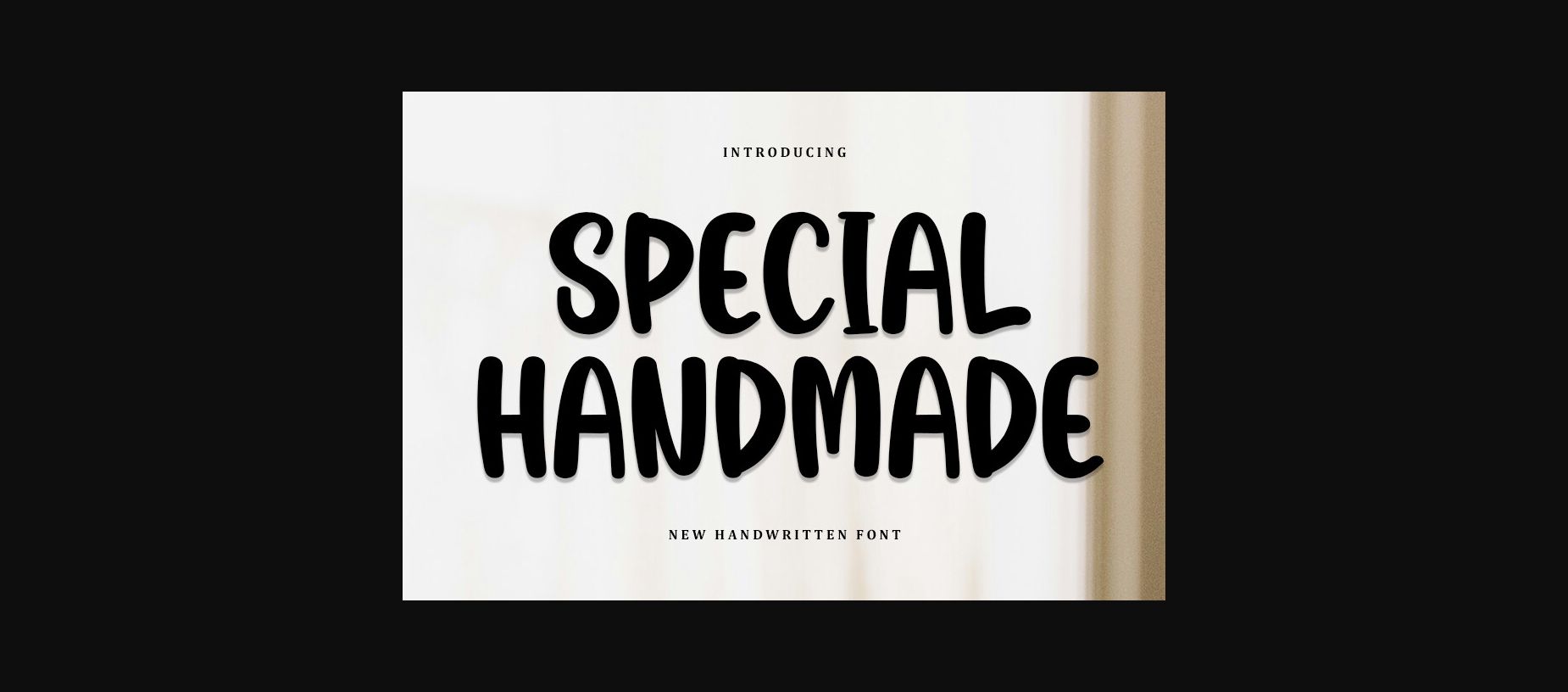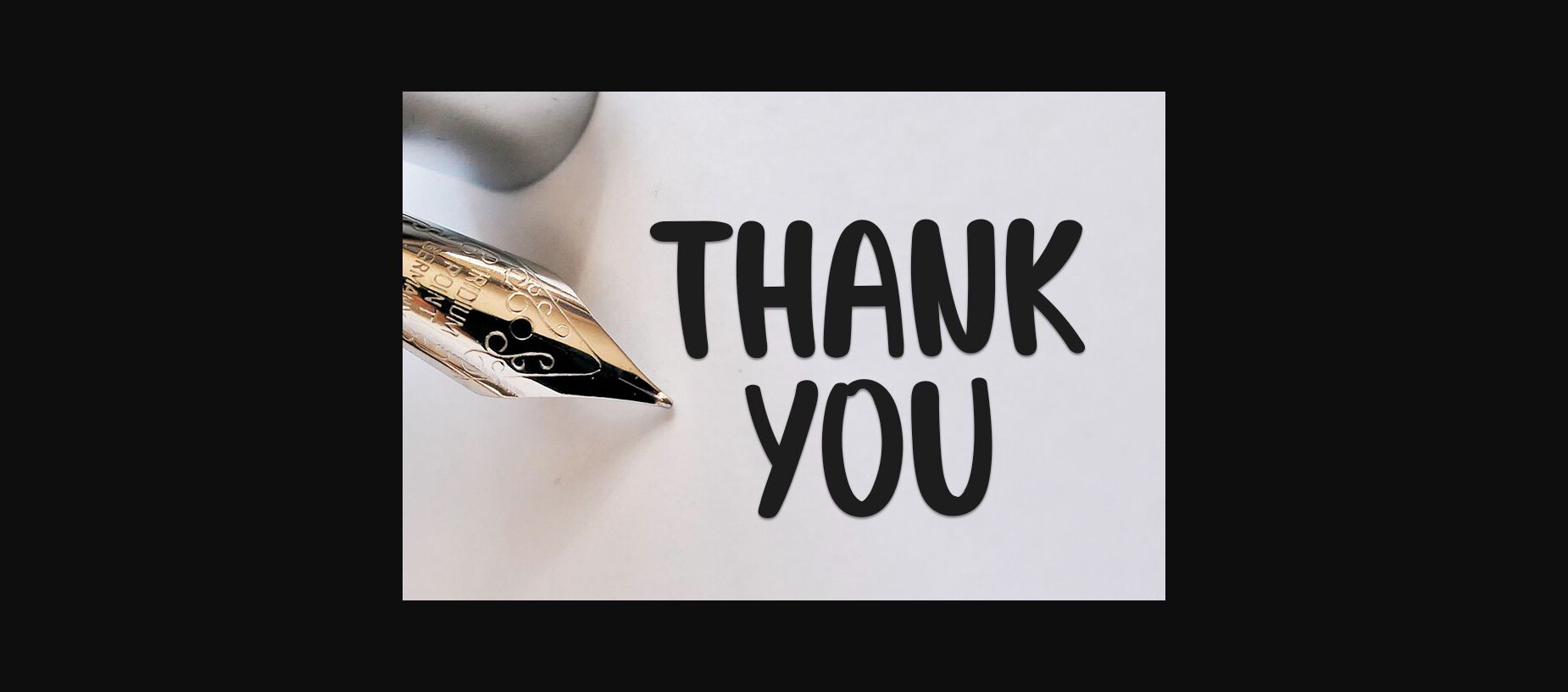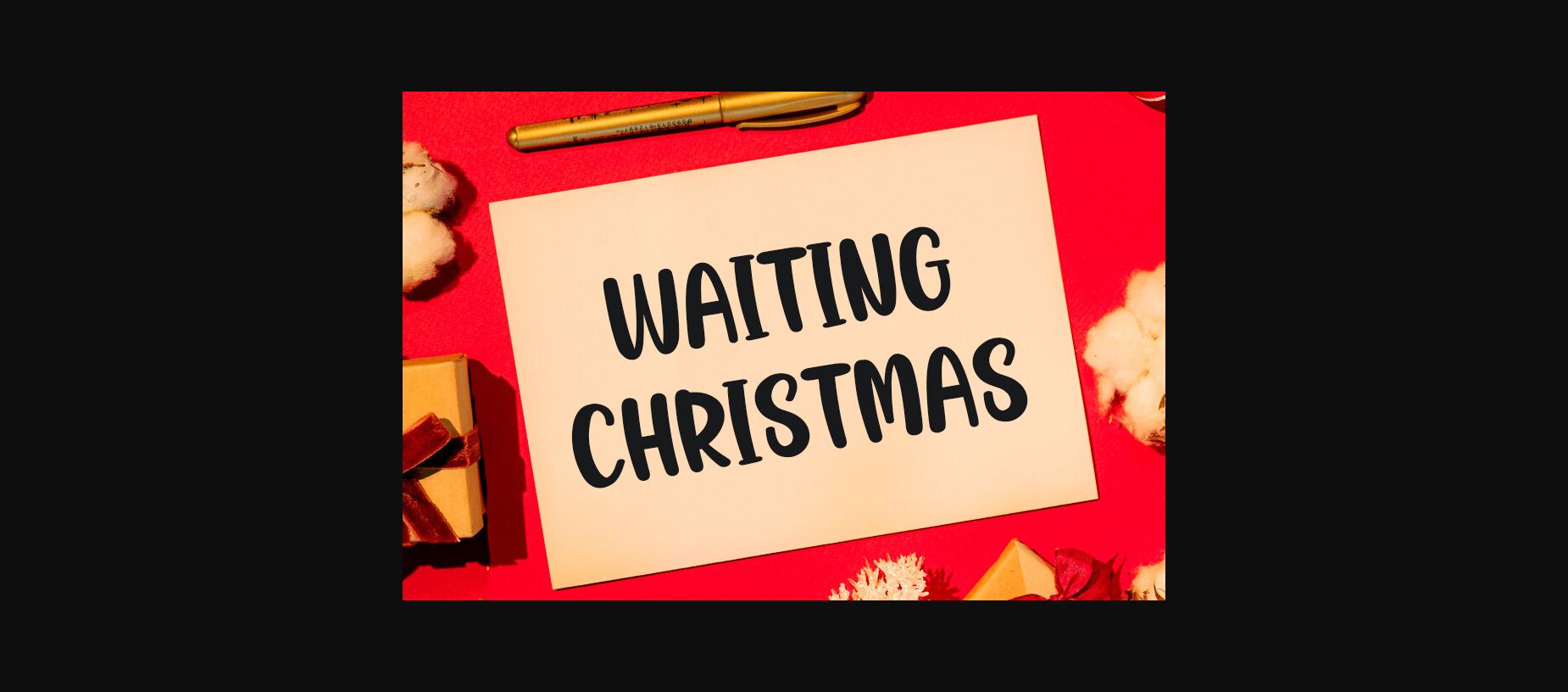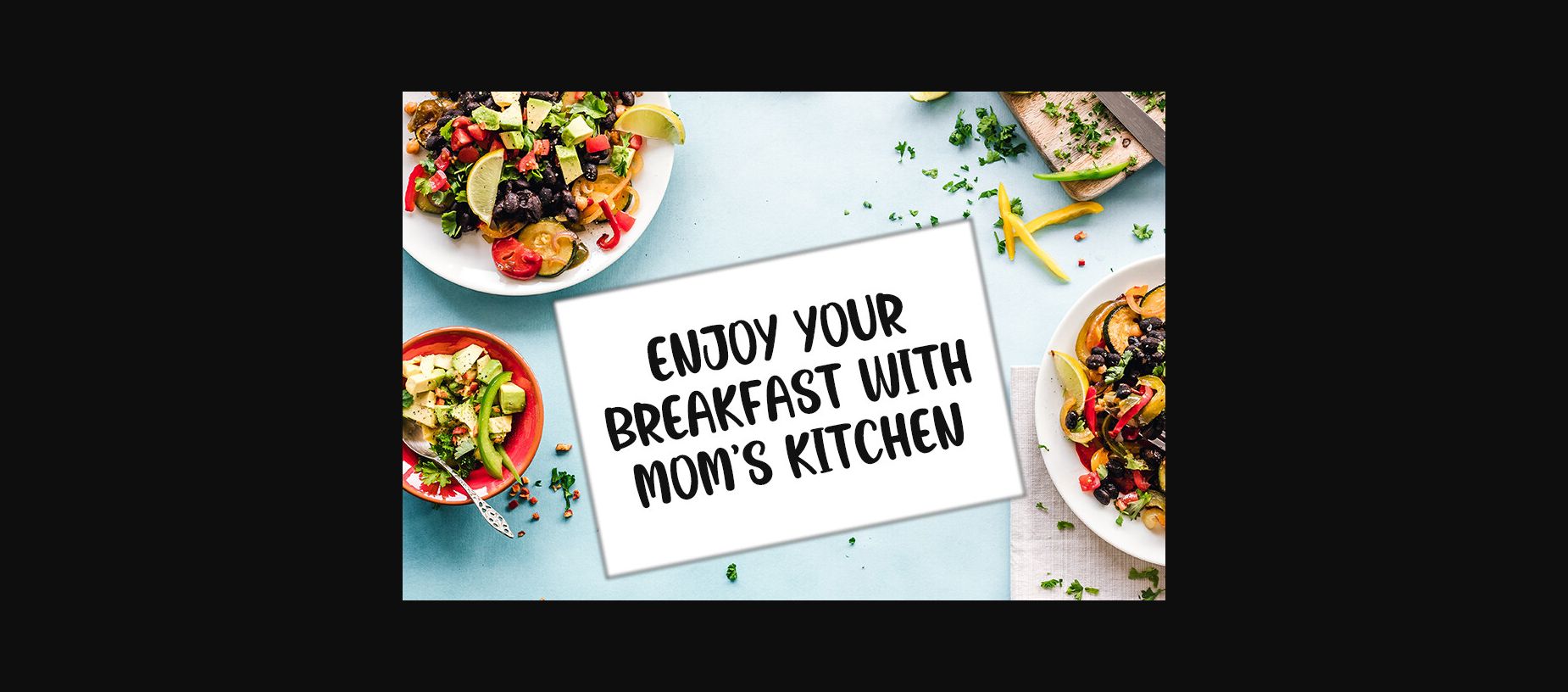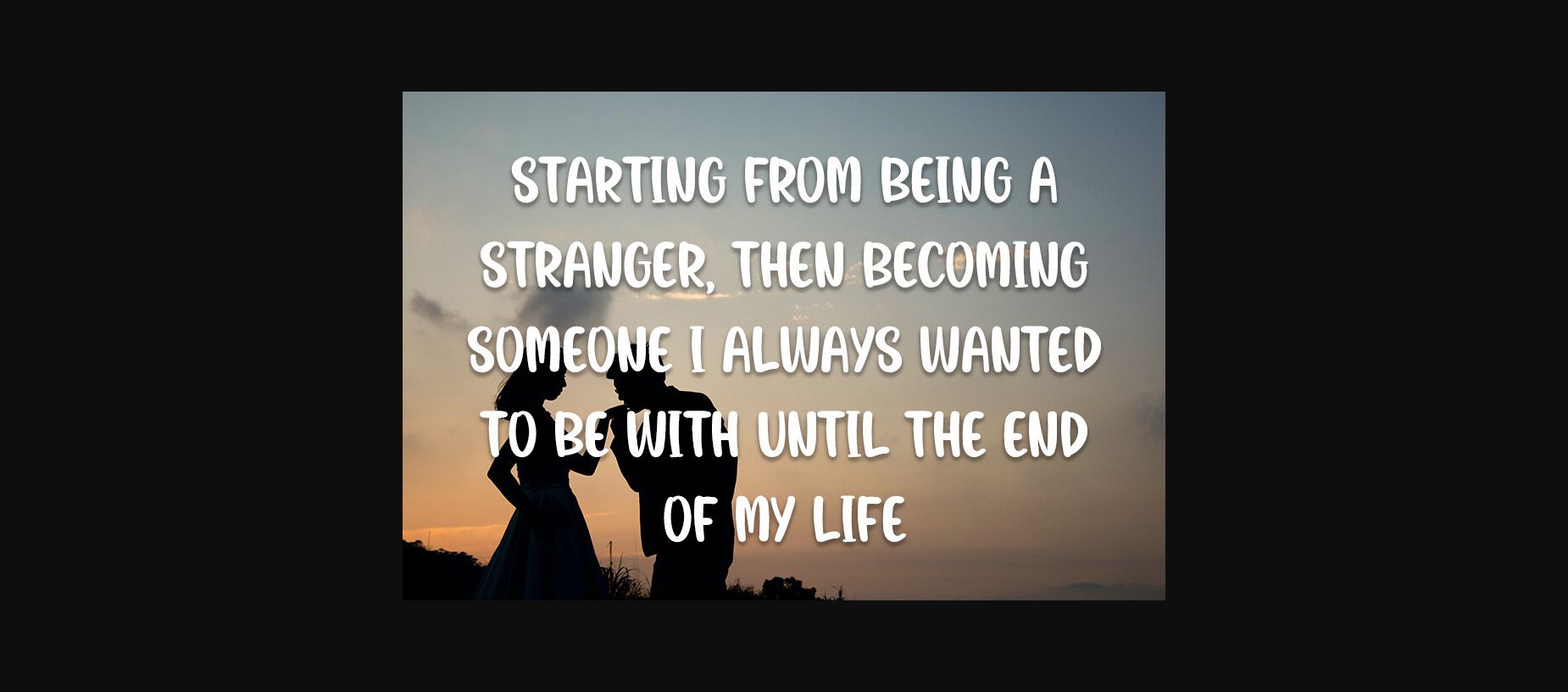
About Special Handmade Font
Special Handmade is a beautiful and refined sans-serif font. It has a classy, elegant, and modern look that can be used for logos, branding, invitations, stationery, wedding designs, social media posts, and much more!